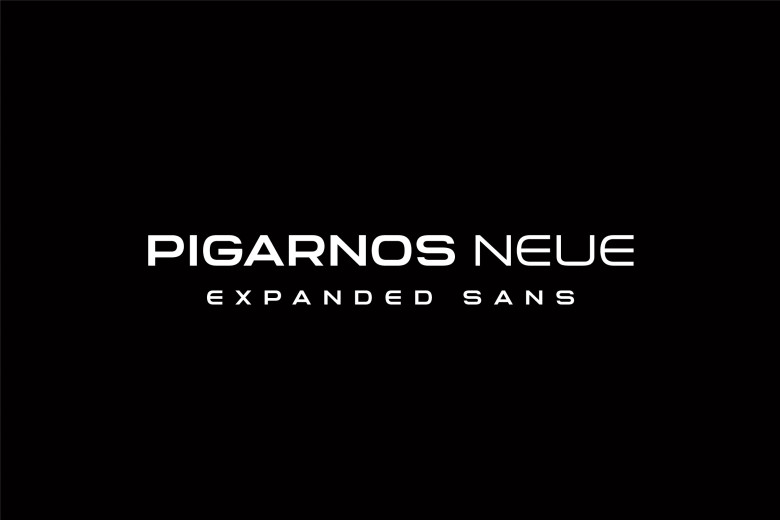
Pigarnos Neue Font
Pigarnos Neue is a vibrant and modern font designed for display purposes. Ideal for any project that calls for something truly modern with an eye-catching and eye-catching visual, its only limitation lies within your creativity!
Pigarnos Neue Sans Serif Font